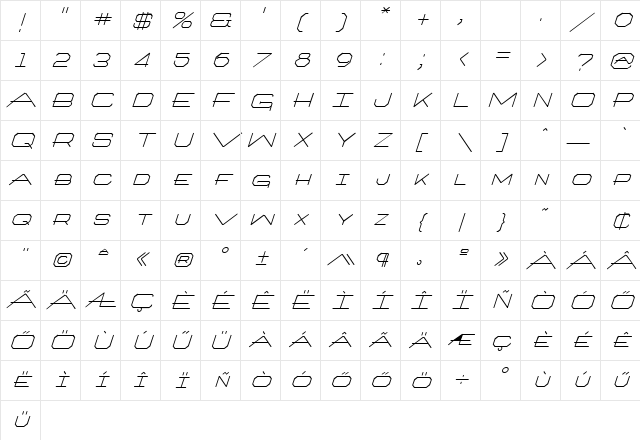
H_ARCHITEXT ITALIC Regular Free Font
H_ARCHITEXT ITALIC Regular
Complete H_ARCHITEXT ITALIC Regular glyph index. Displaying only characters natively supported by H_ARCHITEXT ITALIC Regular font.
Design Context for H_ARCHITEXT ITALIC
H_ARCHITEXT ITALIC is a composed and adaptable typeface that performs quietly and consistently across a wide range of design contexts. The slanted form adds forward momentum and visual energy.
Pro Tip: Use H_ARCHITEXT ITALIC for emphasis, pull quotes, and subheadings where its slanted energy can add rhythm to the layout.